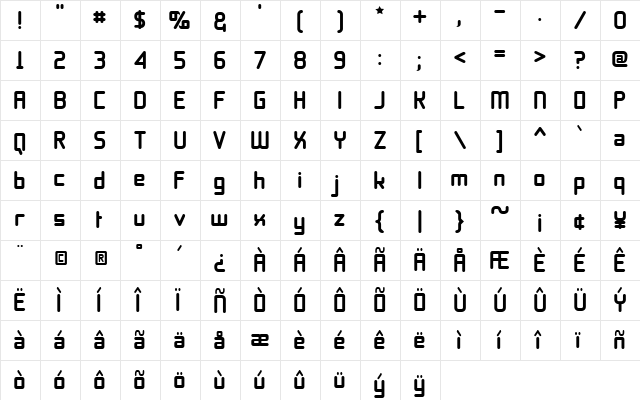
11S01 Black Tuesday Regular Font Preview
11S01 Black Tuesday Regular
Design Context for 11S01 Black Tuesday Typeface
11S01 Black Tuesday takes a measured approach to typography — its balanced proportions and neutral character make it a reliable workhorse for both digital and print work.